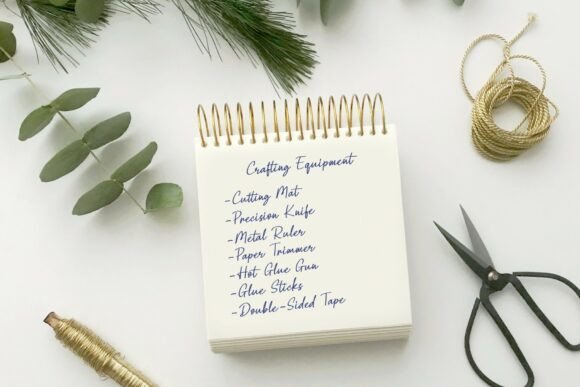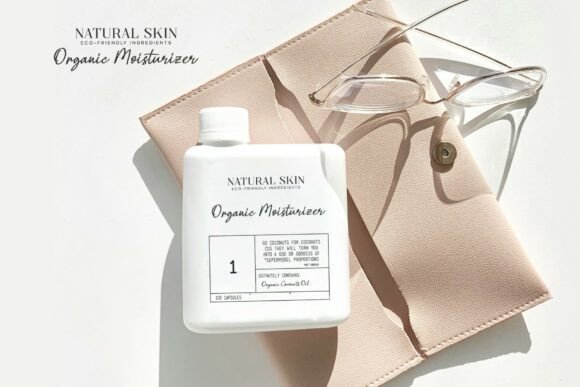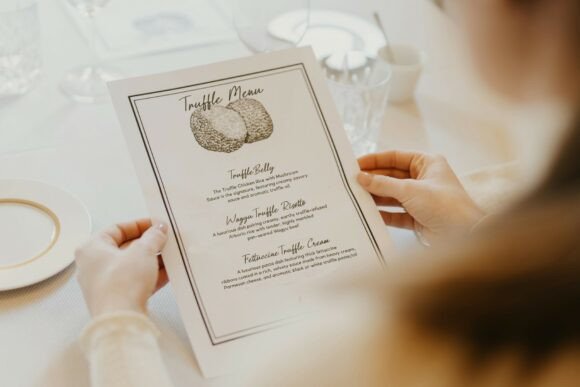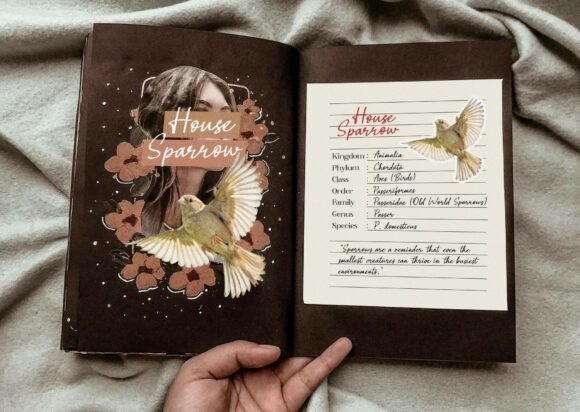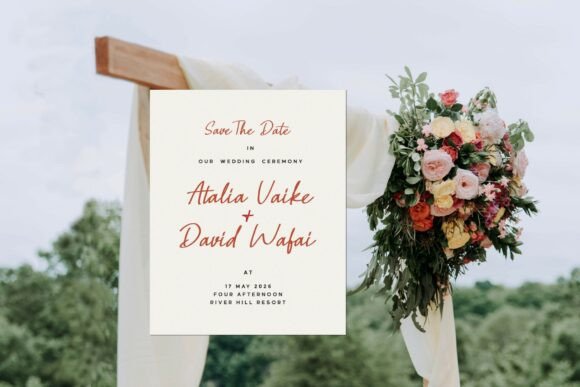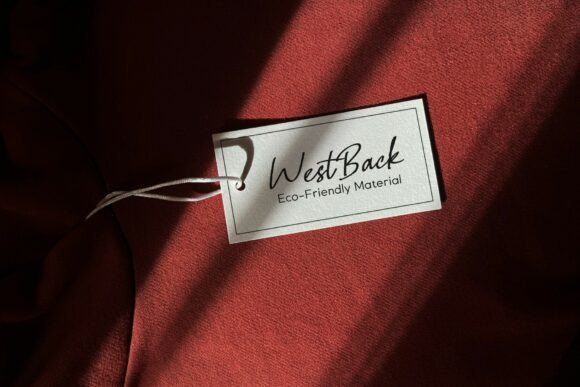
Discover the Warmth of Austin Lilly Font: A Personal Design Journey
I’ll never forget the moment I stumbled upon the perfect font for a client’s branding project. It was as if the stars aligned, and my design woes disappeared. I was working on a lifestyle coaching brand that needed a personal touch, something that screamed warmth and authenticity. That’s when I met Austin Lilly, an organic script typeface that captured the “thoughtful-and-personal” soul I was looking for.
A Designer’s Honest Review: What I Love and What to Watch Out For
- ✅ Authentic warmth: Austin Lilly’s hand-penned letterforms and natural ink-like textures give it a genuine, handwritten feel that’s perfect for personal branding.
- ✅ Casual elegance: This font’s rhythmic slant and flowing curves make it perfect for adding a touch of sophistication to any design.
- ✅ OpenType features: Austin Lilly comes with a range of OpenType features, including stylistic alternates and glyphs, that allow for endless customization.
- ⚠️ Limited use in formal contexts: While Austin Lilly is perfect for personal branding, it may not be the best choice for formal or corporate designs.
- ⚠️ Requires attention to spacing: To get the most out of this font, you may need to adjust the spacing between letters to ensure it looks natural and effortless.
The Story Behind Austin Lilly: Designer Inspiration
Austin Lilly was designed with the intention of capturing the warmth and authenticity of handwritten notes. The designer, inspired by the imperfect beauty of real handwriting, created a font that would bring a personal touch to any design. With its natural textures and flowing curves, Austin Lilly is the perfect choice for designers looking to add a human touch to their work.
| What makes Austin Lilly unique? | Austin Lilly’s unique blend of hand-penned letterforms and natural textures sets it apart from other script fonts. |